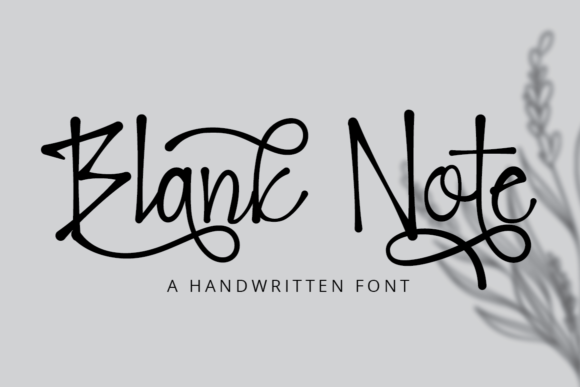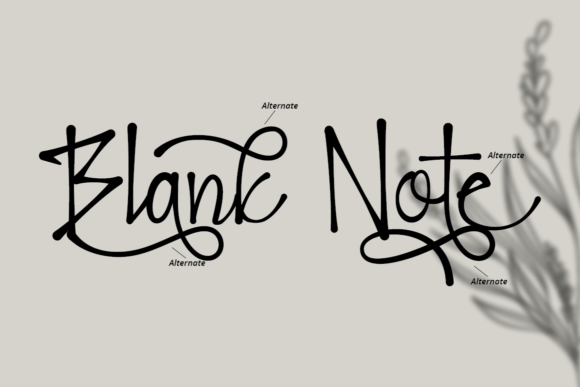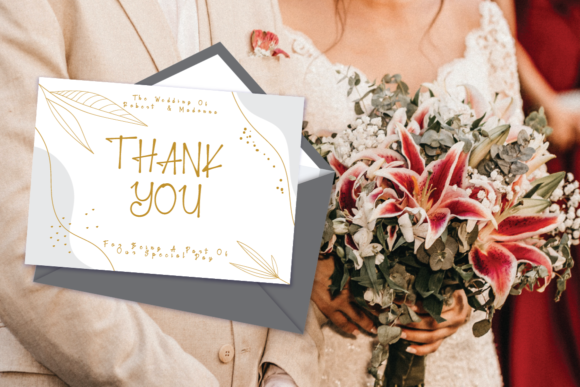
About Blank Note Font
Blank Note is an exquisite handwritten font, masterfully designed to become a true favorite. It maintains its classy calligraphic influences while feeling contemporary and fresh. Fall in love with it and bring your projects to the highest levels!